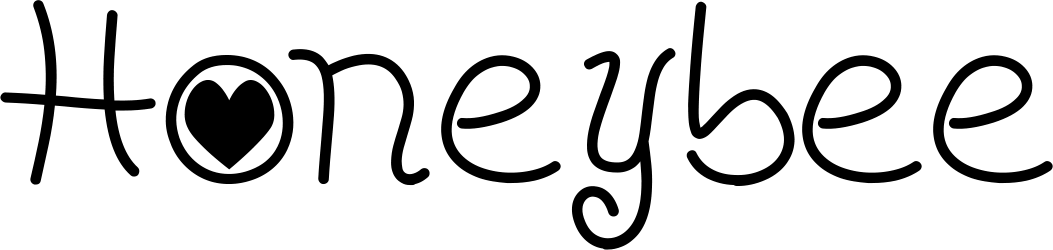
Honeybee Font
The Honeybee is a script font that helps you to improve the quality of your writing design. This informal font is created with a handwritten element that can give off friendly and delicacy vibes. You can use this font in any quotes, flyers, invitation cards, greeting cards, and more content when you want to convey a cozy feeling. Download this lovely right now font and enjoy!